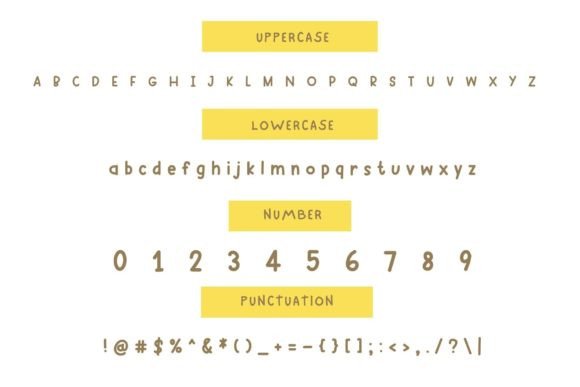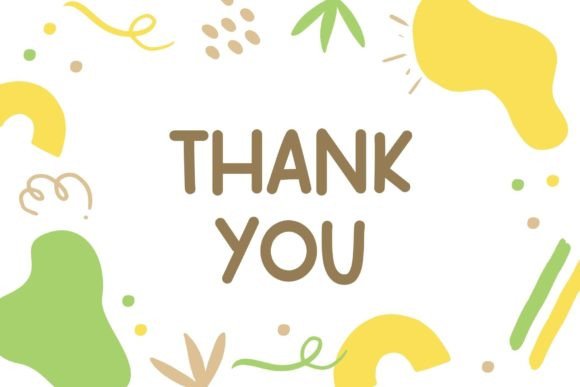
The Braxton Font: A Playful and Authentic Handwritten Display Font
I’ll never forget the time I was working on a project for a client who wanted a font that embodied playfulness and authenticity. I had been searching for what felt like hours, but nothing seemed quite right. That was when I stumbled upon the Braxton font. It was love at first sight! ✨ This cute handwritten display font has since become a staple in my design toolkit, and I’m excited to share it with you.
A Personal Review of Braxton Font
- ✨ Playful and authentic feel that’s perfect for a wide range of projects
- ✅ Highly legible, even at smaller sizes
- 💫 Beautifully crafted with a high level of attention to detail
- 🎨 Versatile and can be used for both digital and print projects
While Braxton font is an excellent choice for many projects, there are a few things to keep in mind. 🤔 For example, it’s a display font, so it’s best used in larger sizes. Additionally, some of the more intricate details may not be as clear at very small sizes. ⚠️ However, these are minor limitations, and overall, the font is incredibly versatile.
The Backstory of Braxton Font
The Braxton font was designed with the intention of creating a playful and authentic handwritten display font. The designer wanted to capture the feeling of handwritten text, while still maintaining a high level of legibility and versatility. The result is a font that’s perfect for a wide range of projects, from blog posts and logos to invitations and greeting cards.
Q: What type of projects is Braxton font best suited for?
A: Braxton font is perfect for a wide range of projects, including blog posts, logos, branding, ads, invitations, greeting cards, planners, photo albums, decorations, and much more.
Q: Is Braxton font available in different weights or styles?
A: Braxton font is a single font, but it does come with a range of OpenType features, glyphs, and stylistic alternates that allow you to customize the font to fit your design.